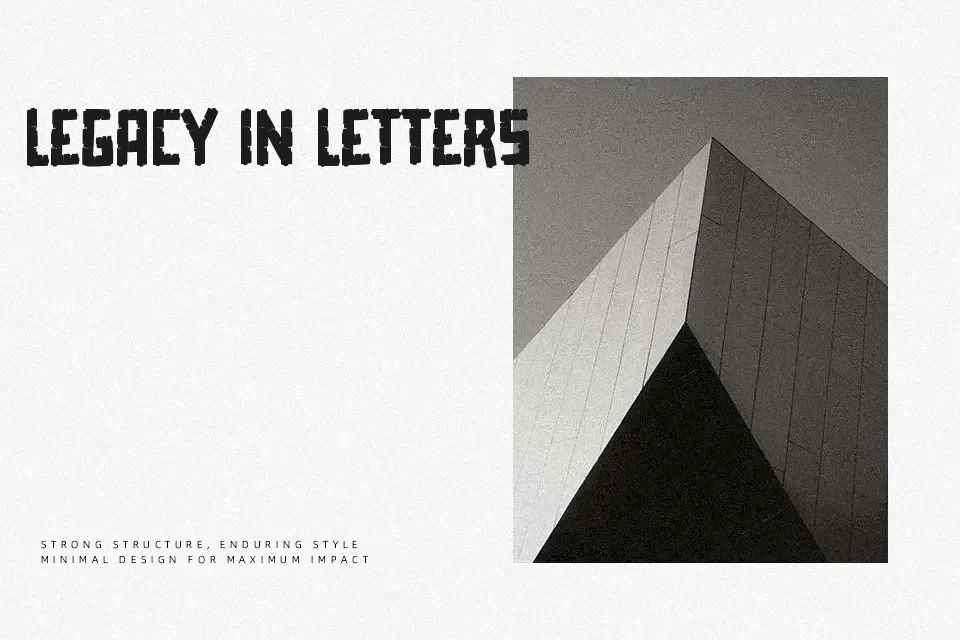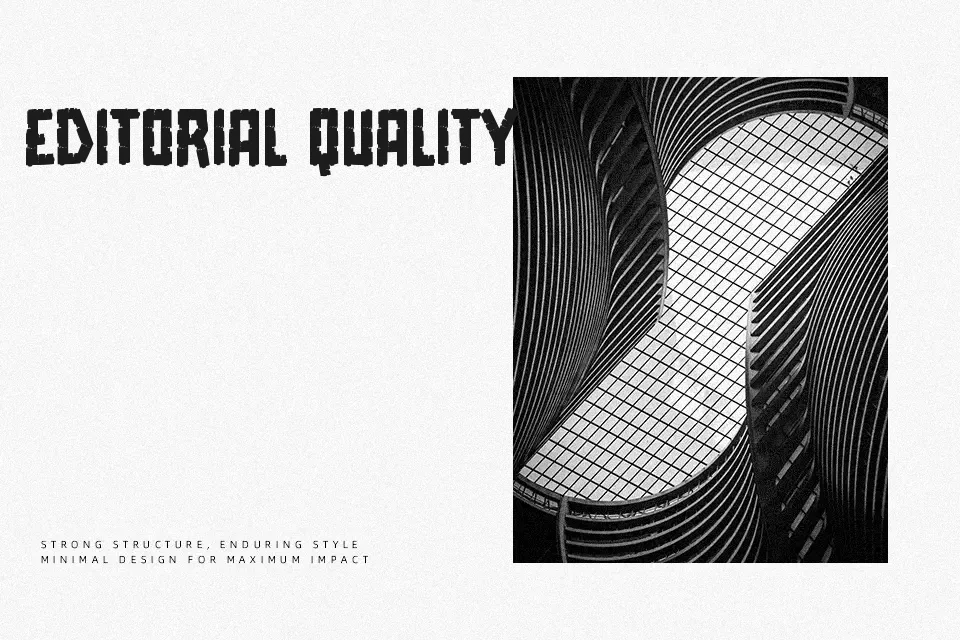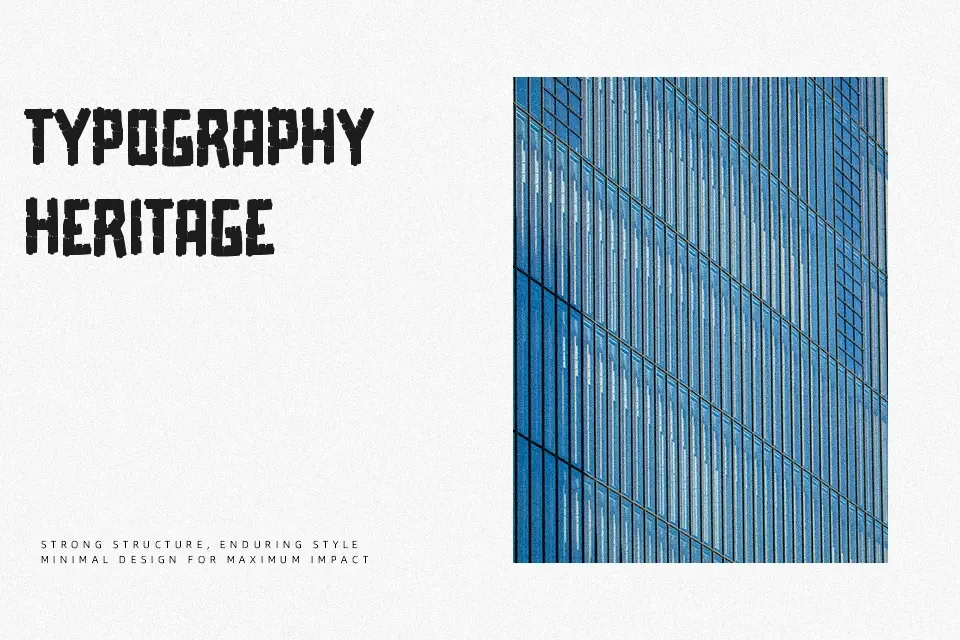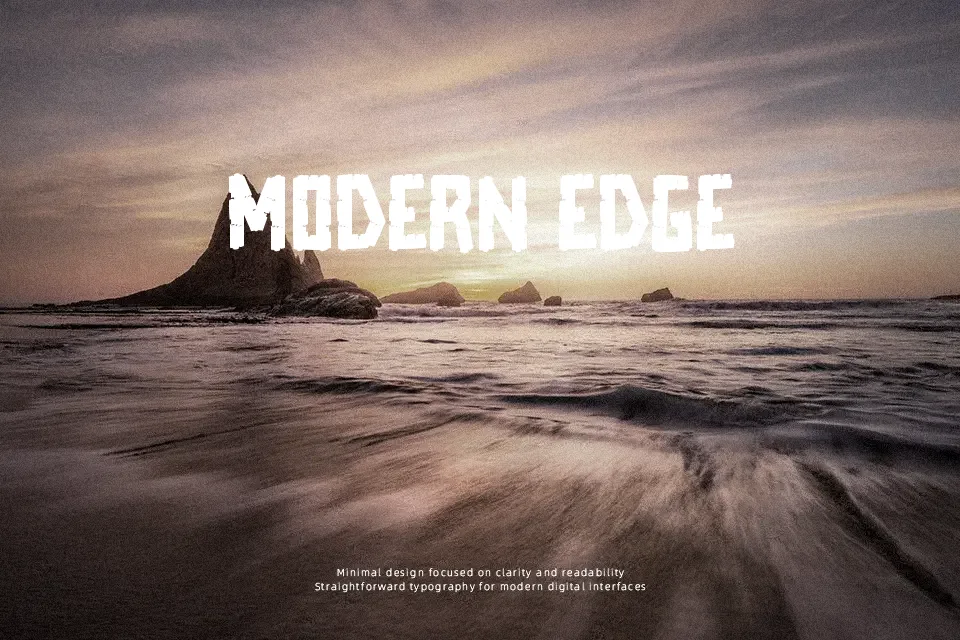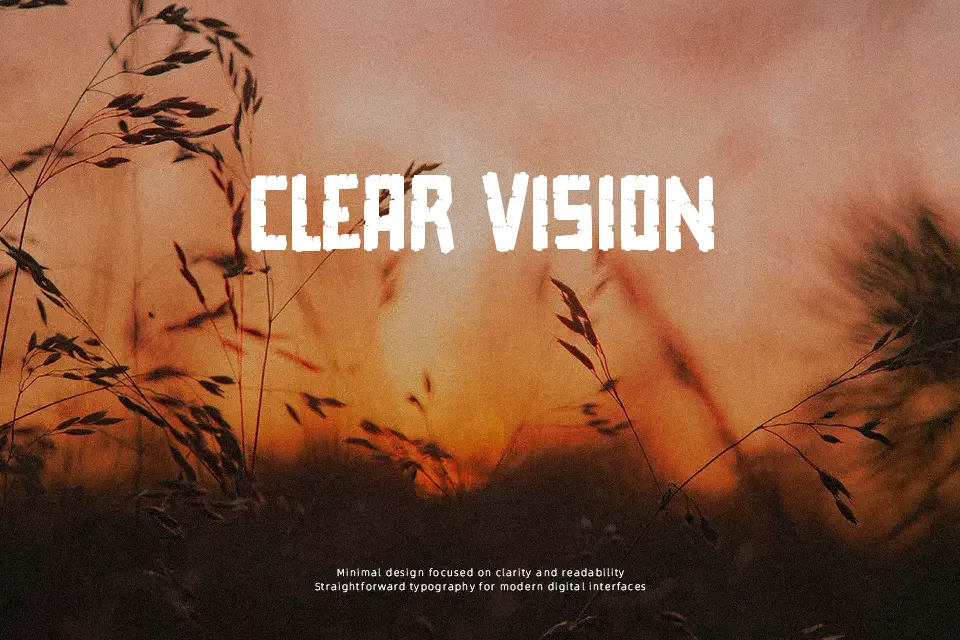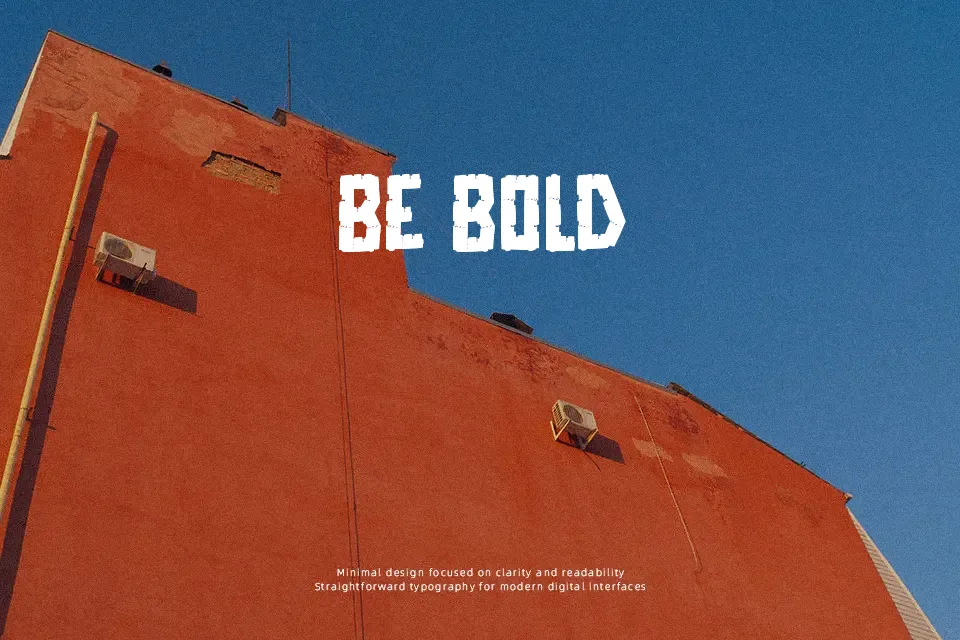
Tribal Warfare Font
Tribal Warfare Font features an aggressive stencil construction characterized by thick, jagged strokes and irregular distressed cutouts across every glyph. The letterforms exhibit solid, broad proportions paired with relatively tight character spacing that reinforces a compact, monolithic visual rhythm. At large display scales, the typeface delivers sharp thematic resonance across video game titles, extreme sports branding, and music festival merchandise. However, the heavy decorative decay and dense silhouettes significantly impair legibility at smaller text sizes. In practice, the font achieves its strongest graphic impact when isolated as short, oversized focal statements rather than running prose.
Best For: video game titles, music festival posters, apparel graphics, adventure branding
Not Ideal For: continuous reading, small user interface text, corporate annual reports, dense spreadsheets
Perfect for gaming, headline, and logo, with a bold and decorative style.